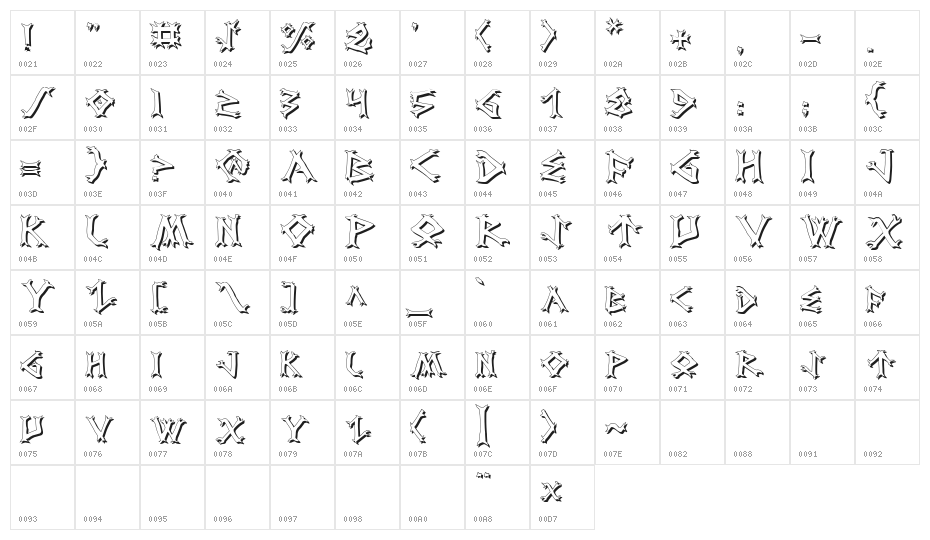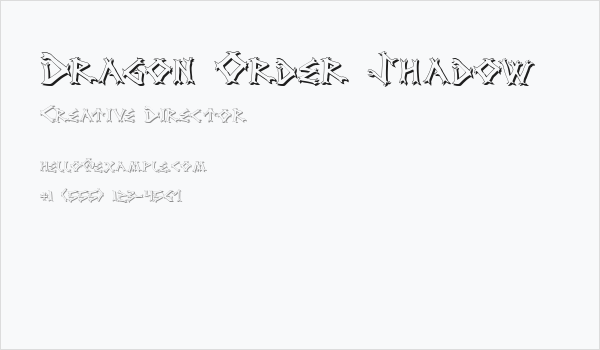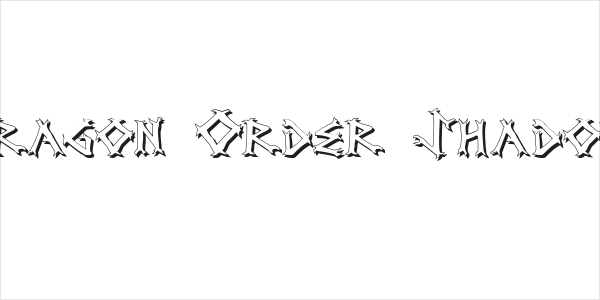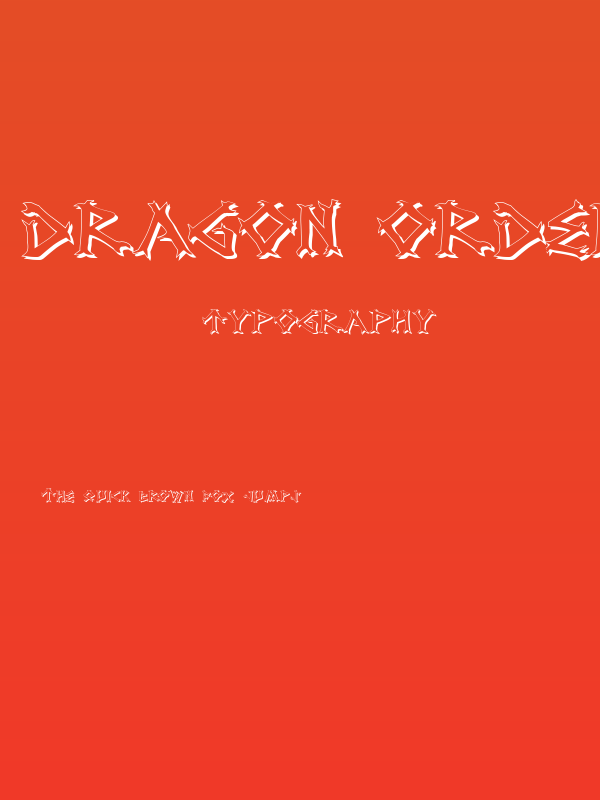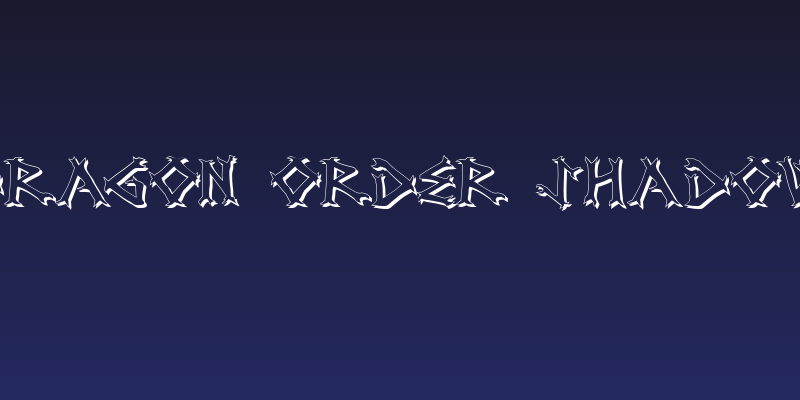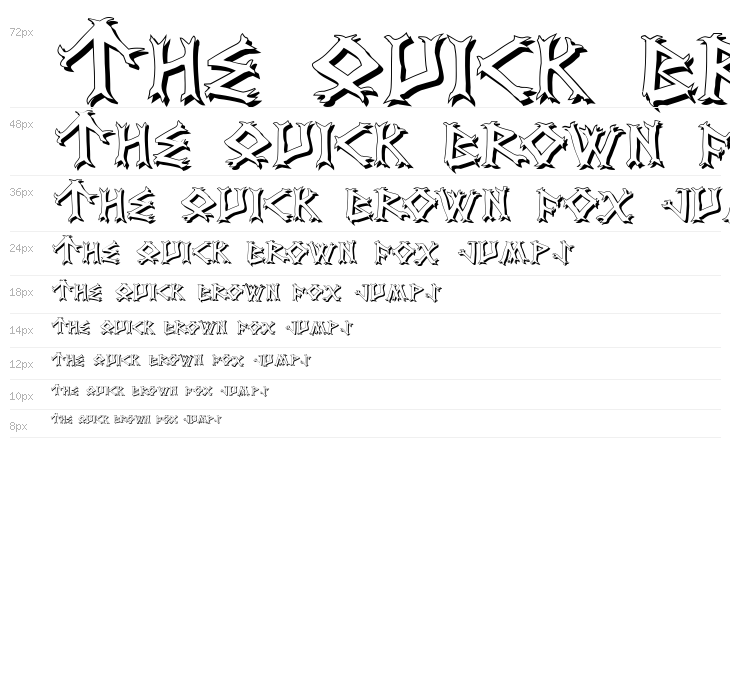
Dragon Order Shadow Font
Dragon Order Shadow Description
This font features a bold, shadowed design with sharp, angular edges and a gothic-inspired aesthetic. Each character is outlined with a thick shadow, giving a three-dimensional effect that enhances its dramatic appearance. The letters are highly stylized, with pointed serifs and intricate details that evoke a sense of mystery and fantasy. The numbers and special characters maintain the same elaborate style, ensuring consistency across all elements. This font is ideal for projects that require a striking and memorable visual impact.
| Proposed Projects | Suitable for fantasy-themed posters, video game titles, book covers, and branding that requires a dramatic flair. |